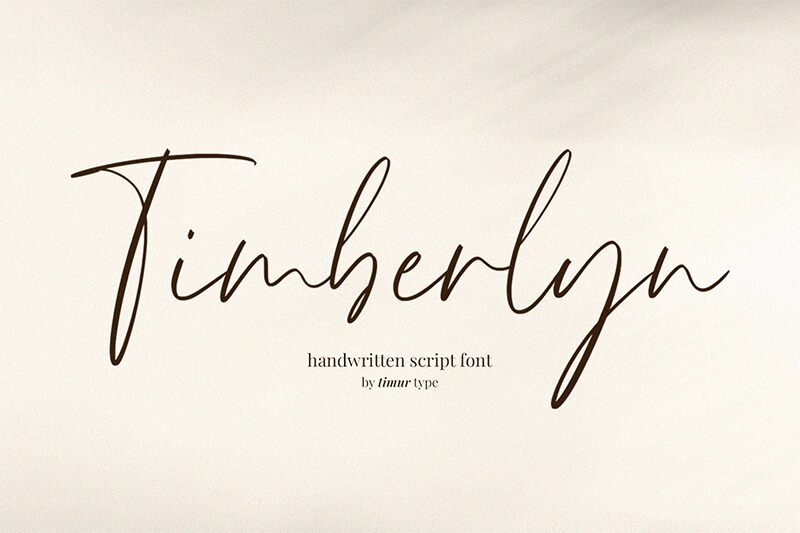
Timberlyn
Timberlyn, a creation of Timur Type, exudes the charm of a signature with its handwritten style that promises to add a personal touch to any design.
The light weight of the strokes imparts an air of elegance and subtlety, making it an ideal choice for projects that require a blend of sophistication and authenticity.
This font finds itself at home in contexts where the human touch is celebrated-invitations, branding, and editorial designs stand out with its fluid, organic contours. The unique character shapes and fluidity suggest exclusivity and artistry, poised to elevate the visual storytelling of any creative work.